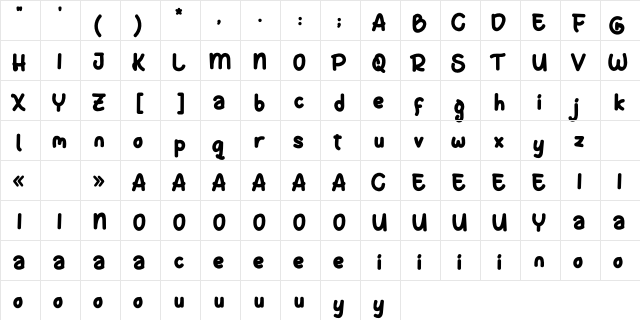
SWEET FAIRY PERSONAL USE
| Designer | Rozi |
Design Context for SWEET FAIRY Typeface
SWEET FAIRY is a composed and adaptable typeface that performs quietly and consistently across a wide range of design contexts.